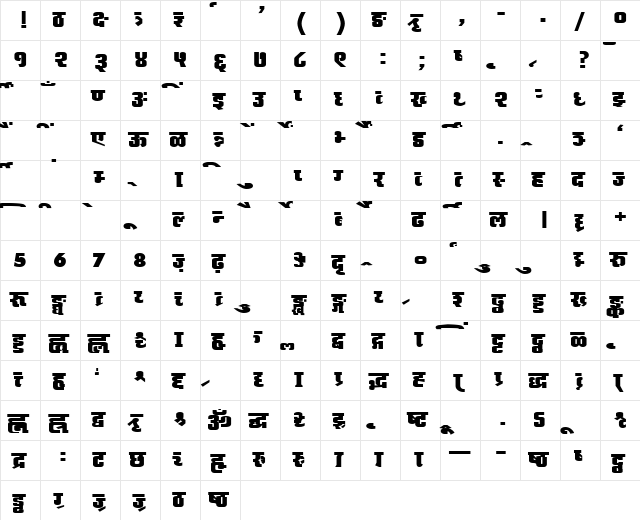
AkrutiDevAkshardharaExtBold Extra Bold
Design Context for AkrutiDevAkshardharaExtBold Typeface
AkrutiDevAkshardharaExtBold offers clean, dependable letterforms without strong stylistic allegiance, making it a practical choice for designers who need flexibility. The heavy weight commands attention and anchors typographic hierarchies.